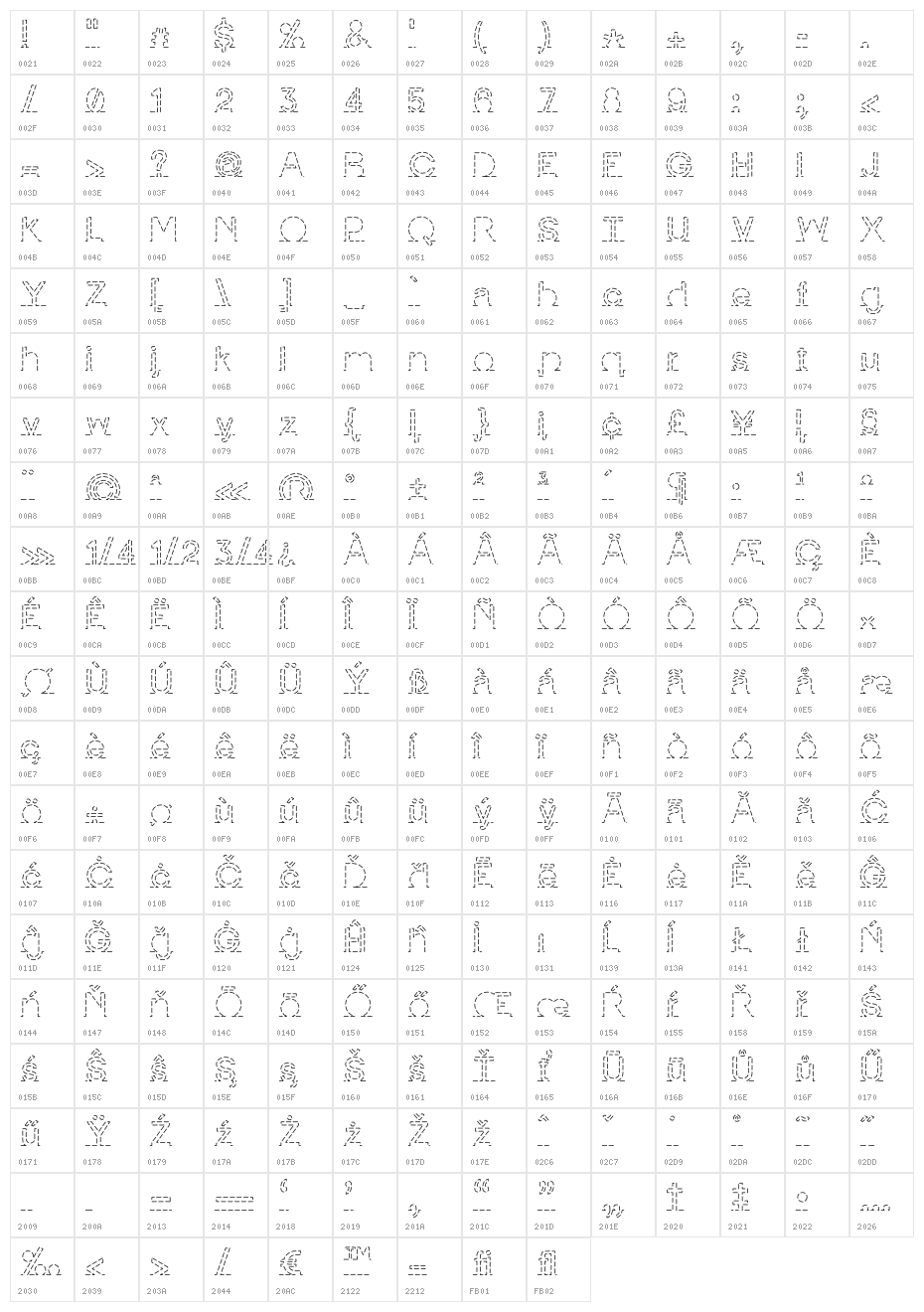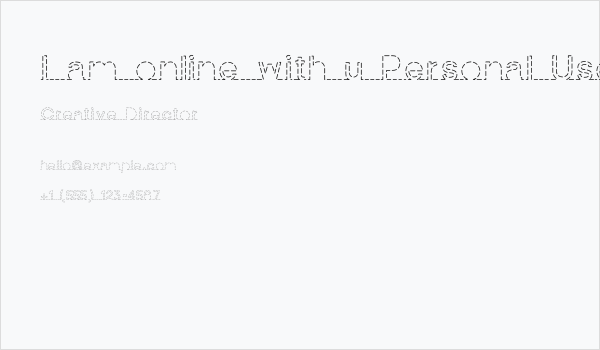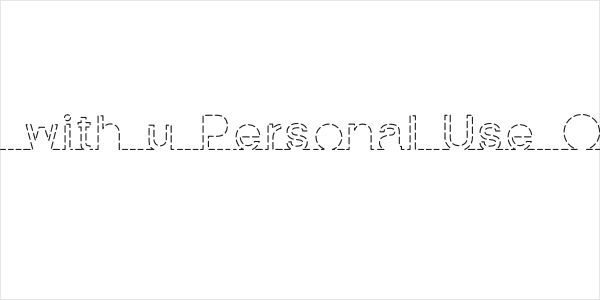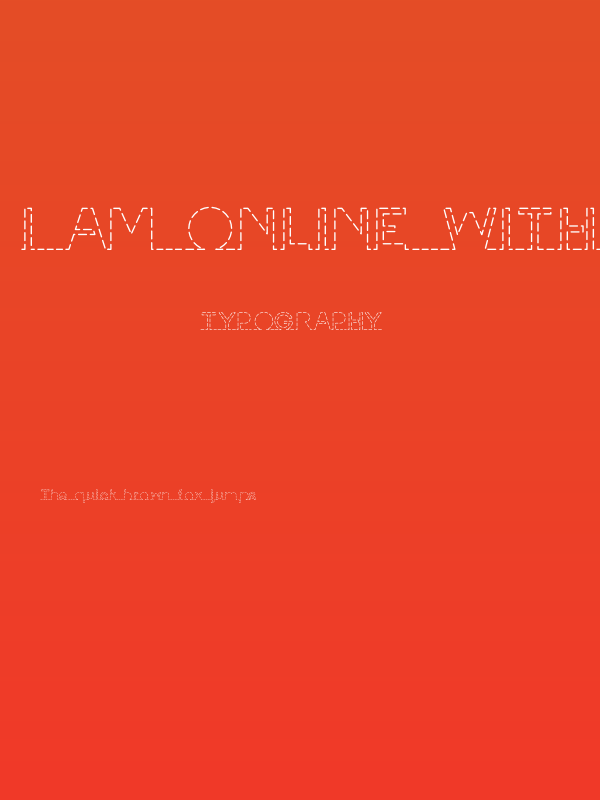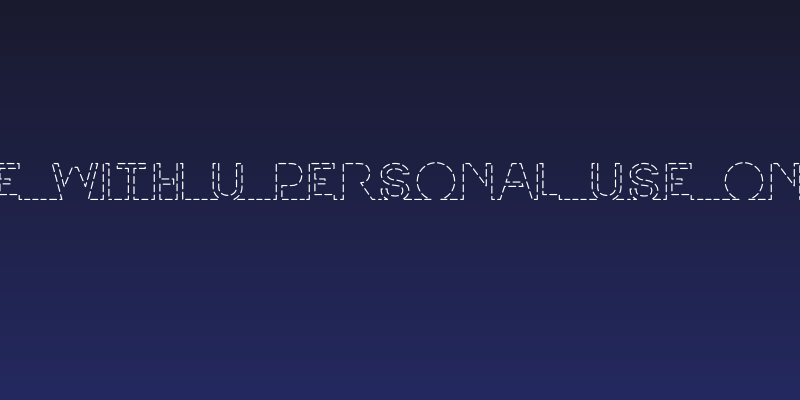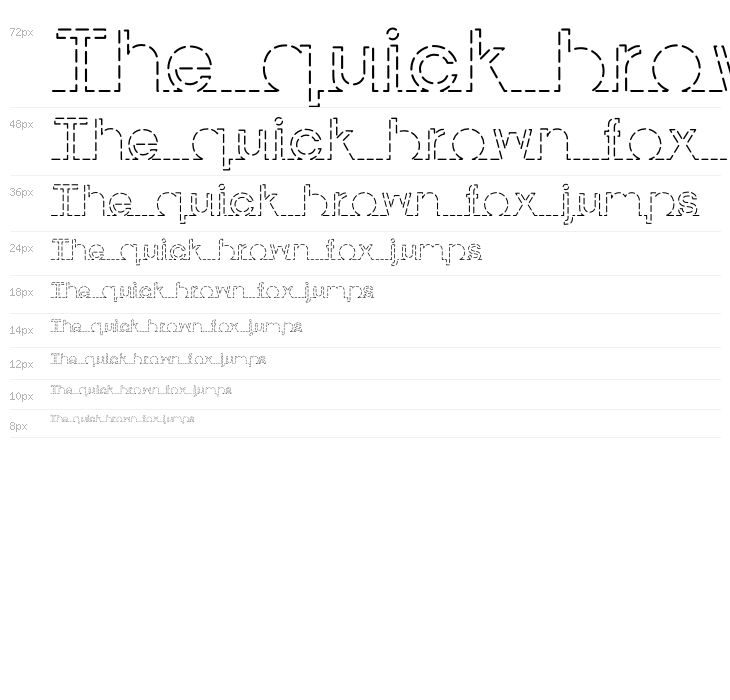
I am online with u Personal Use Only Dashed Font
I am online with u Personal Use Only Dashed Description
This font features a unique dashed line style, giving it a playful and informal appearance. Each character is composed of evenly spaced dashes, creating a sense of movement and energy. The uppercase and lowercase letters maintain a consistent height and width, ensuring readability despite the unconventional design. Numbers and special characters are also included, following the same dashed pattern. This font is ideal for projects that require a casual and creative touch, such as children's books, playful branding, or DIY-themed designs.
| Proposed Projects | Children's books, playful branding, DIY-themed designs, educational materials. |